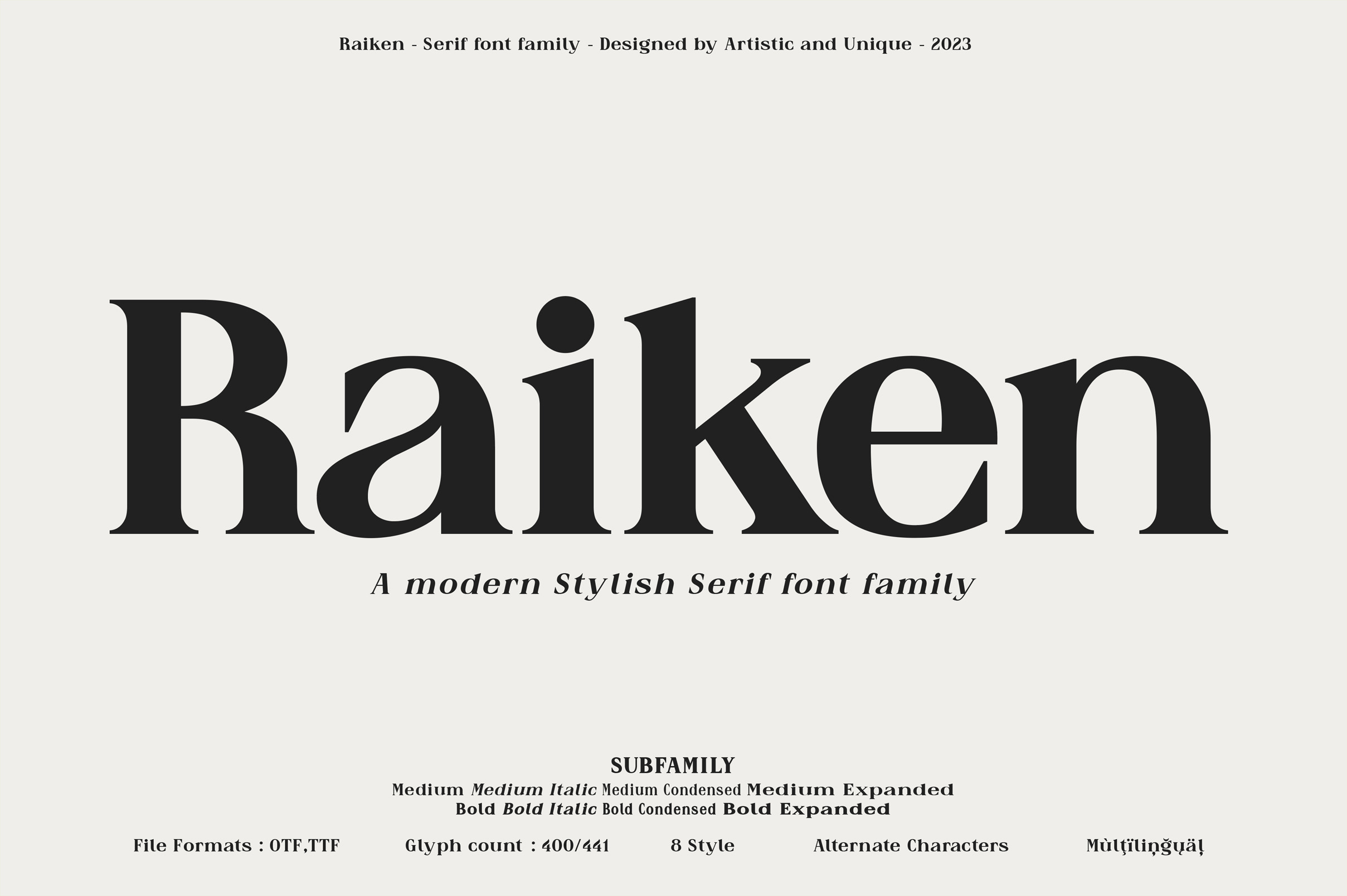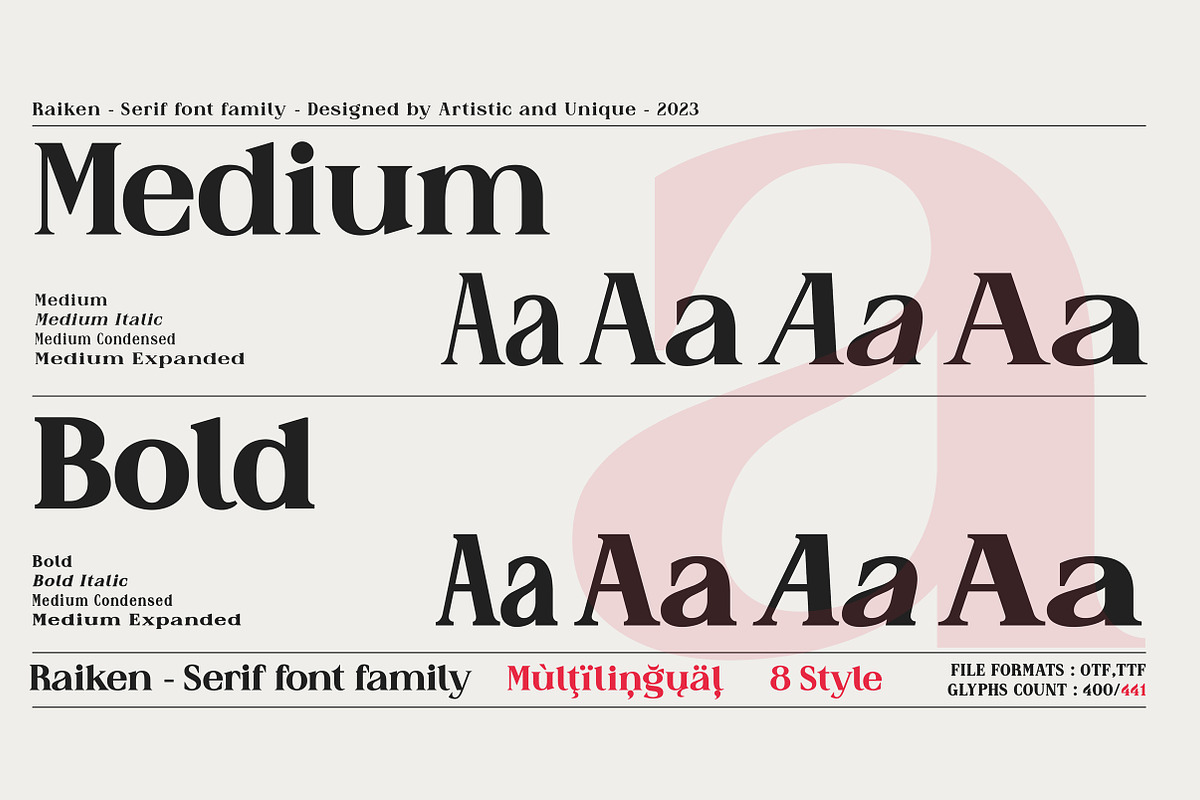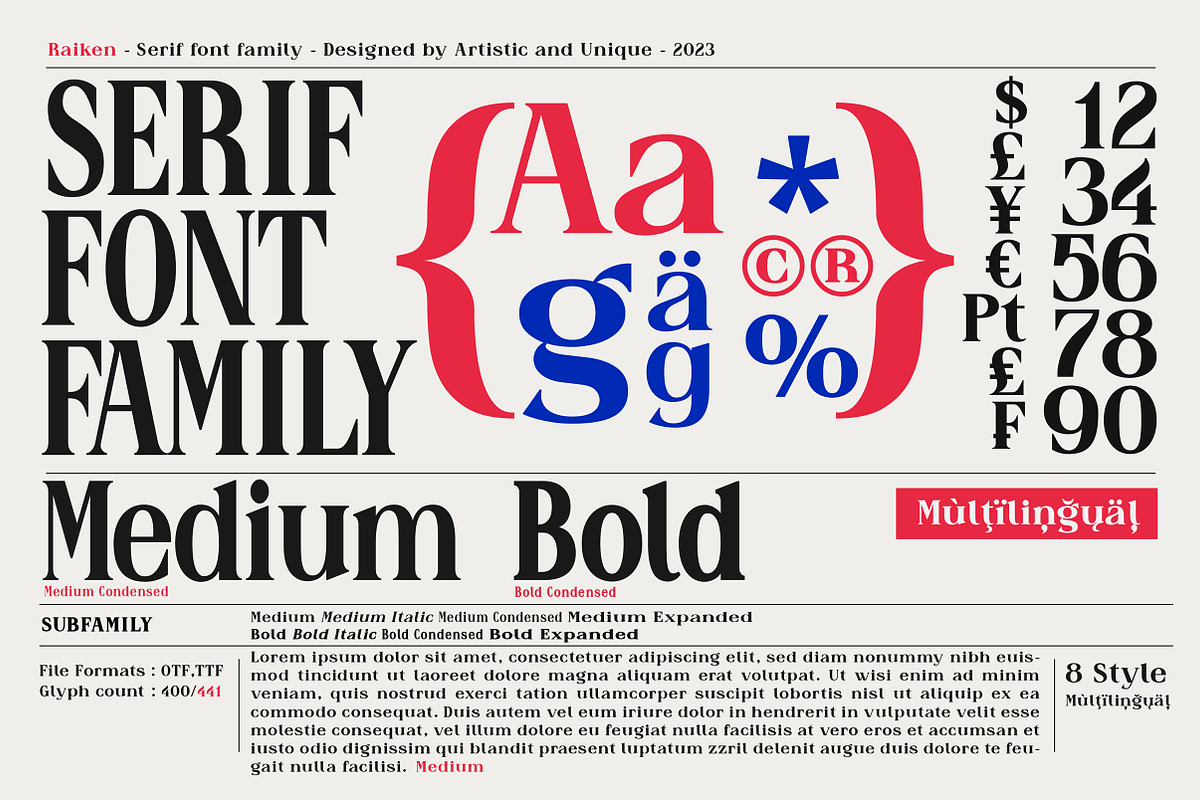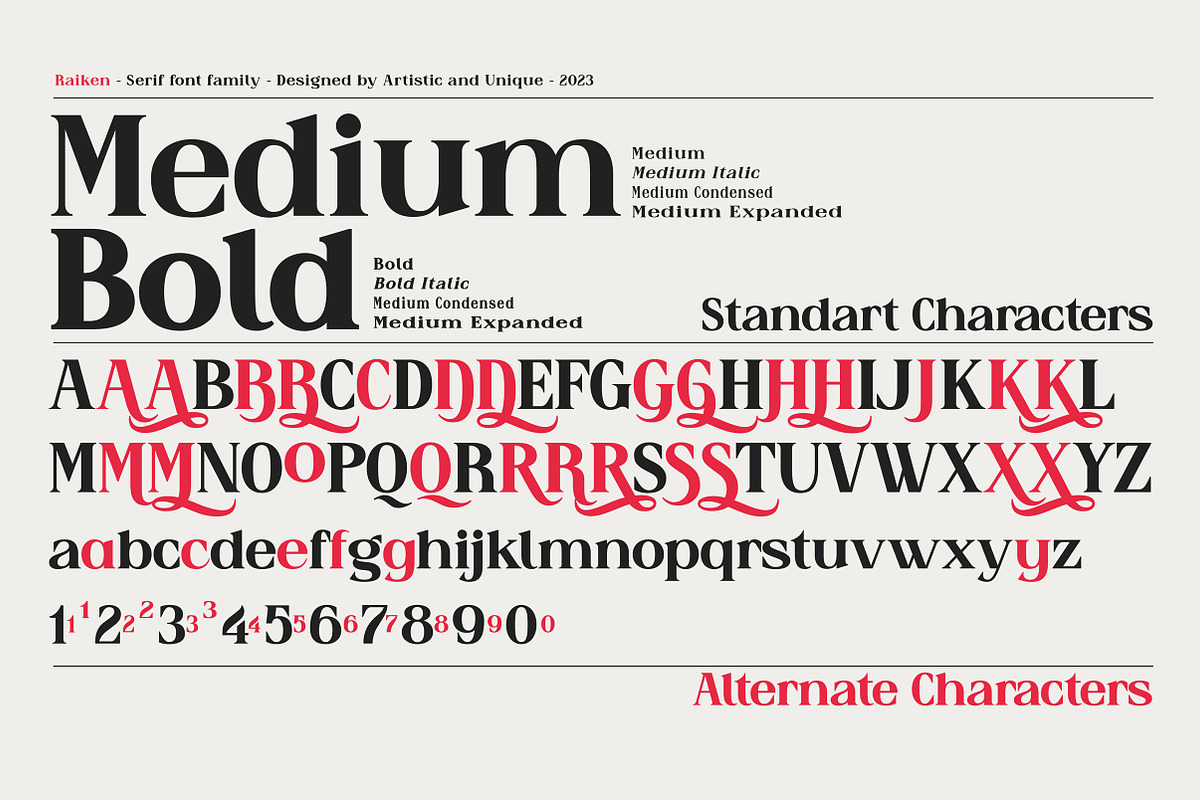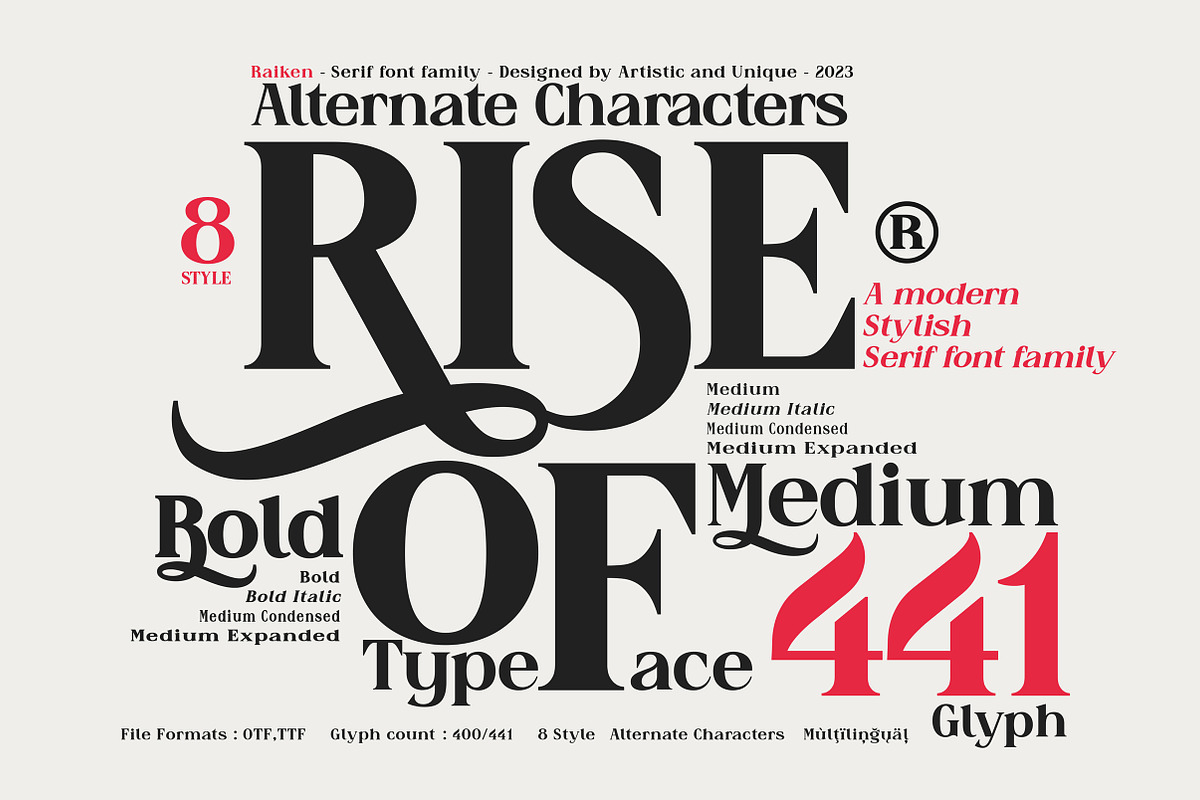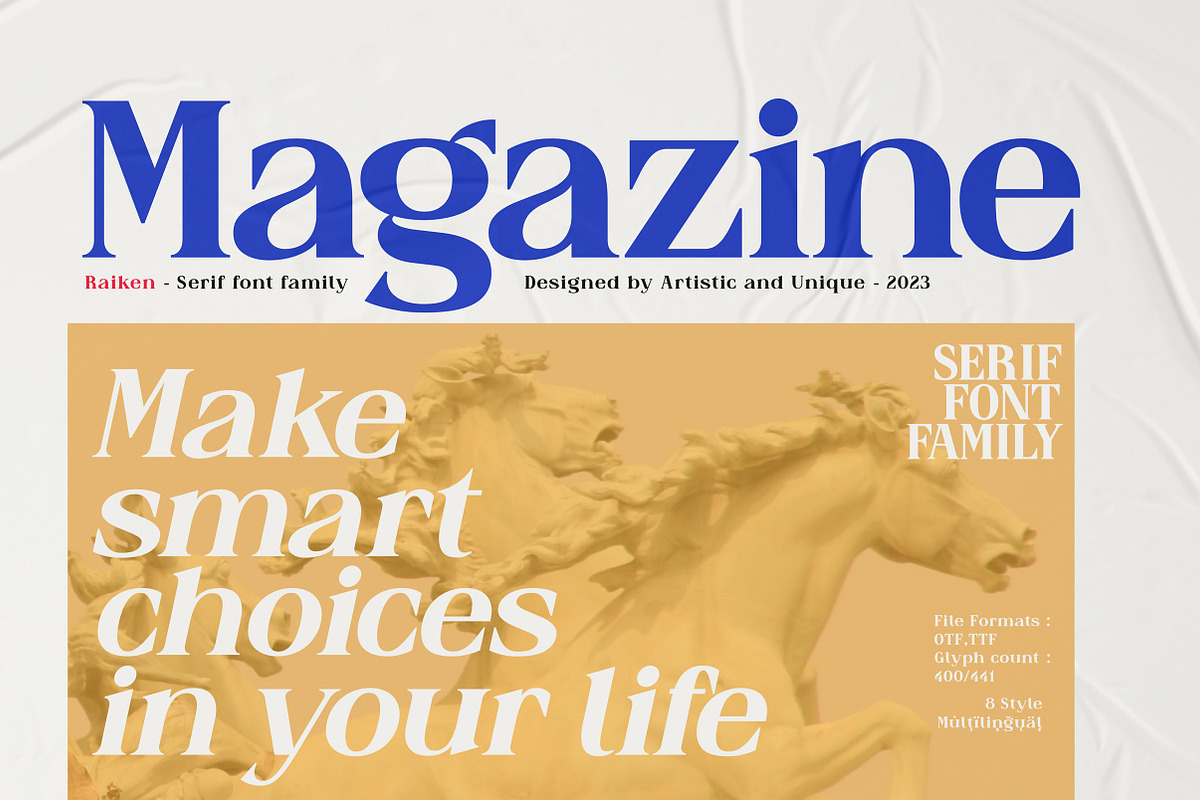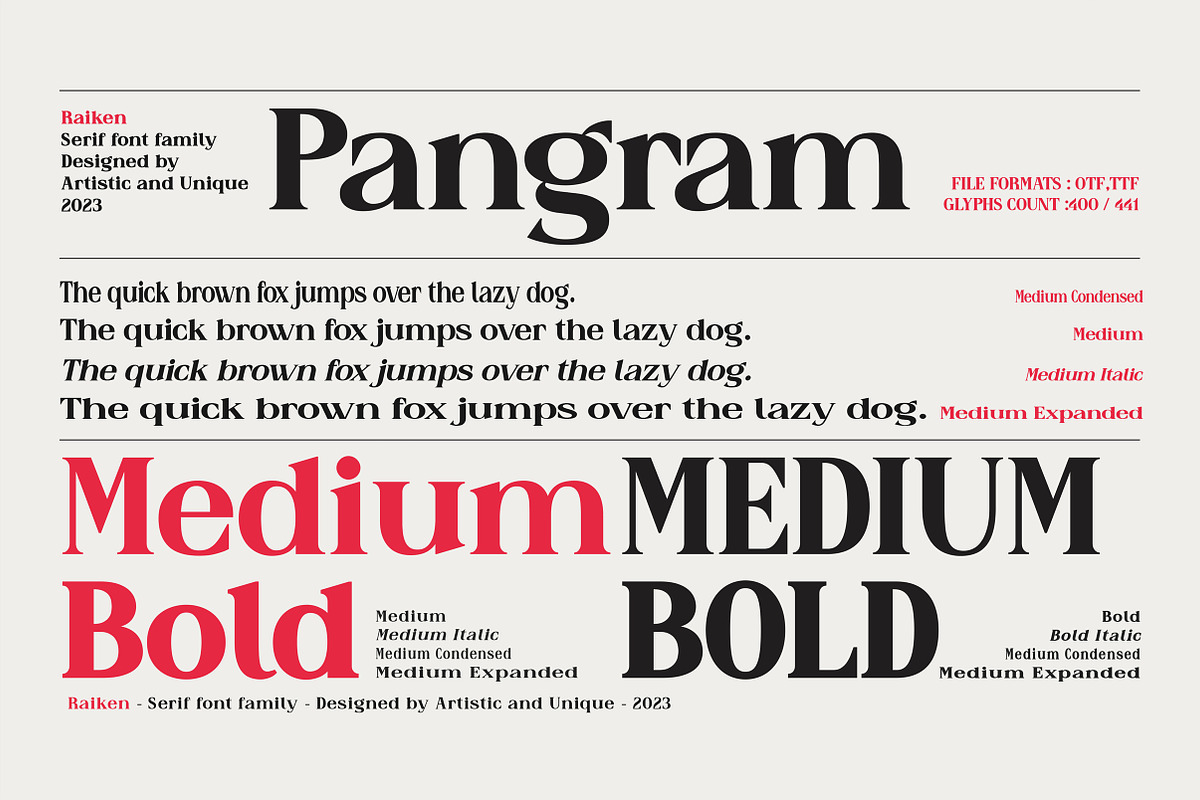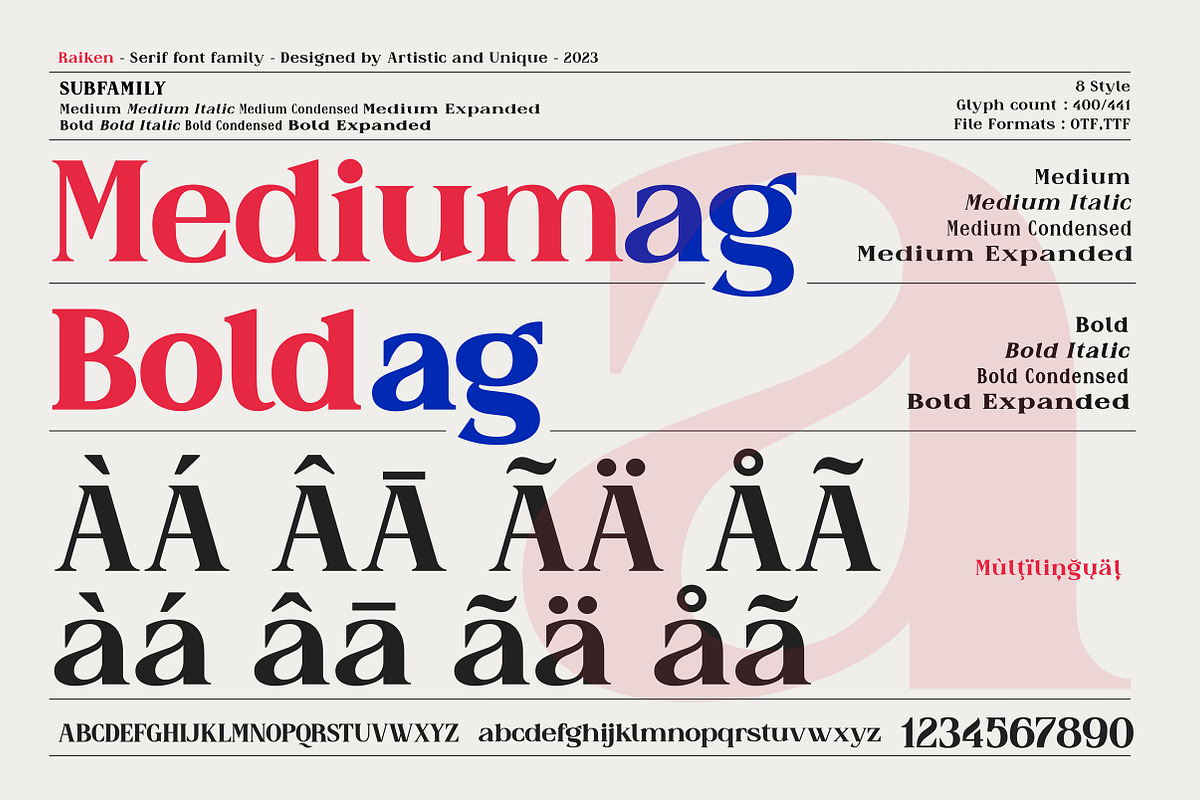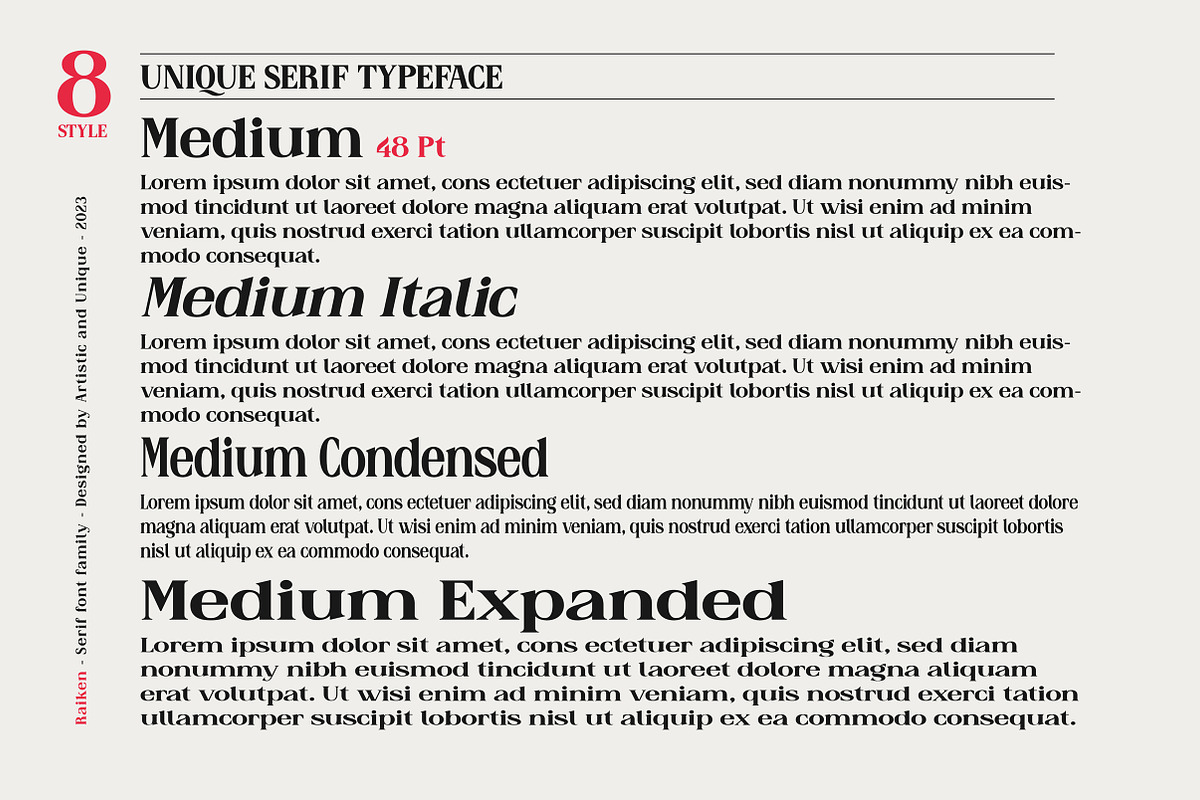
Raiken - Serif font family
Raiken is a stylistic and powerful serif font family with different alternative type designs. You will have the opportunity to enrich the content of your projects with alternative characters. This font comes with multi-language support and 8 styles. It has an elegant structure that can be effective in the development of your projects.
According to the purpose of use in typographic compositions that you will create with the aesthetic structure of alternative characters; You can enrich your titles in books or magazines, and your logos in branding.
You can take advantage of the elegant structure of standard characters in your plain texts. It provides flexibility in all your projects with the alternatives it offers you with its multi-language option, 8 styles and 441 glyphs.
Especially for editorials, magazines, books, branding, logo design, web design, headlines, movie titles etc.
If you are looking for a font with stylistic alternatives, Raiken serif font can meet your needs.
With this font you can create your unique designs.